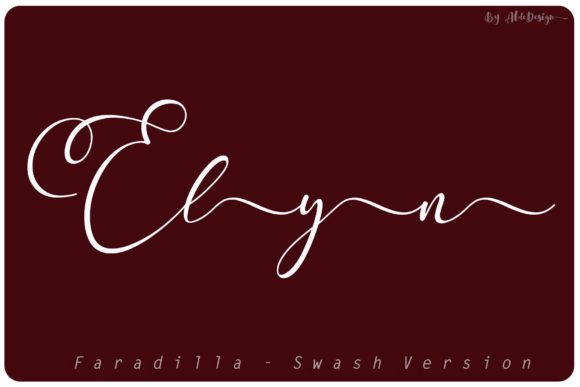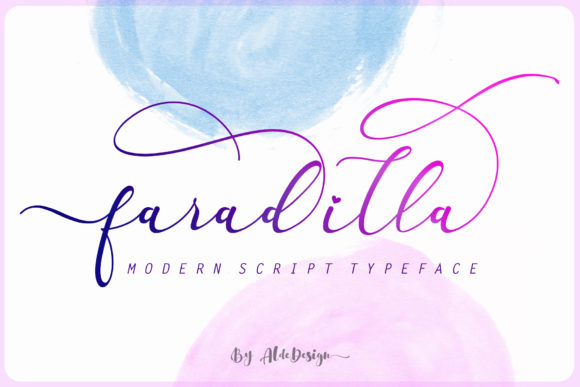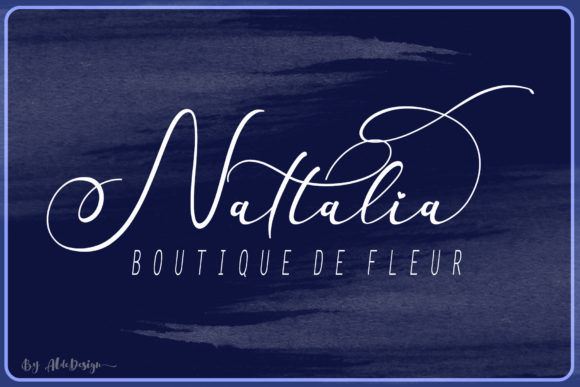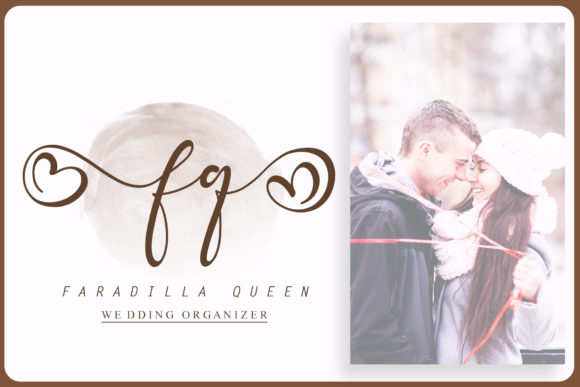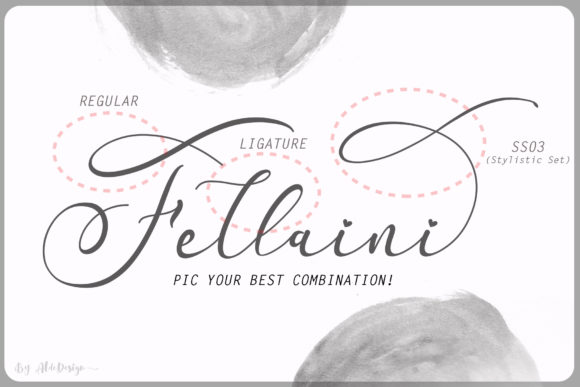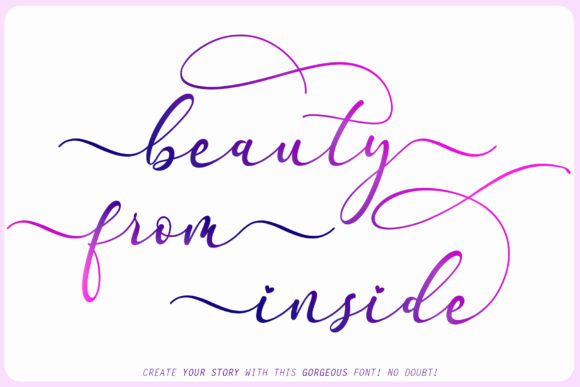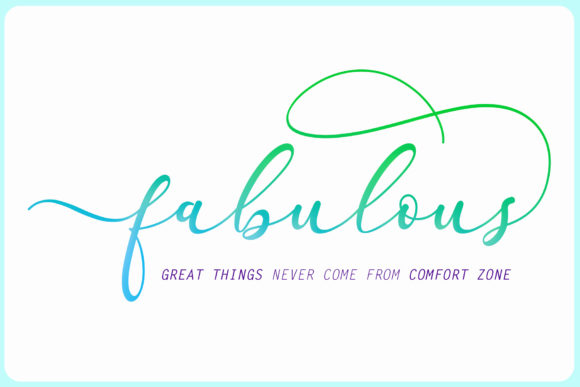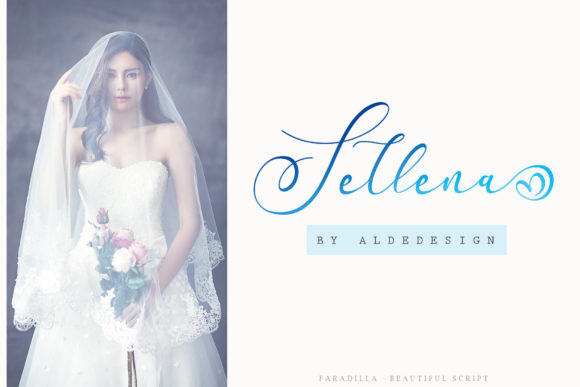
Faradilla Script Font
Introducing “The Faradilla,” a beautiful script font crafted with a touch of love, featuring smooth lines and a varying baseline that adds a luxurious feel to your designs. This font is more than just a typeface; it’s a design asset created with elegance and versatility, making it suitable for a wide range of purposes.
“The Faradilla” stands out with its beautiful script, where each letter carries a sense of love and sophistication. Whether you’re working on headings, weddings, invitations, signatures, logos, branding, t-shirts, letterheads, signage, labels, news, posters, badges, or any project that requires a touch of luxurious script, this font delivers with its distinctive and refined character.
Its smooth lines and varying baseline ensure that your text exudes a sense of elegance and love, making it perfect for special occasions and designs. Logos designed with this font convey a luxurious and memorable brand identity. Wedding invitations, branding materials, posters, and other designs crafted with “The Faradilla” showcase a romantic and sophisticated vibe, making them visually appealing and adaptable to various contexts.
The versatility of “The Faradilla” makes it a great choice for a variety of creative applications, providing a script font that adds a touch of love and luxury to any design context.
In summary, “The Faradilla” is more than just a font; it’s a design companion that brings a beautiful script with a touch of love to your projects. Embrace its elegance for logos, weddings, branding, and more, and let “The Faradilla” enhance your designs with a romantic and luxurious character.